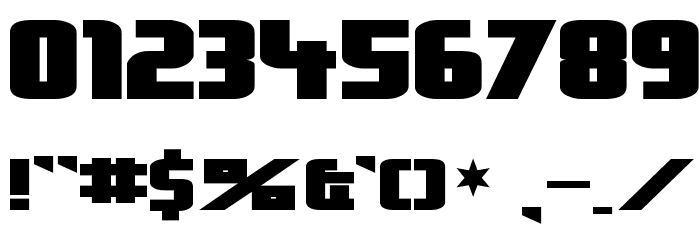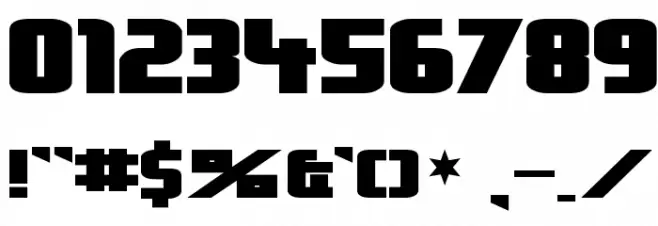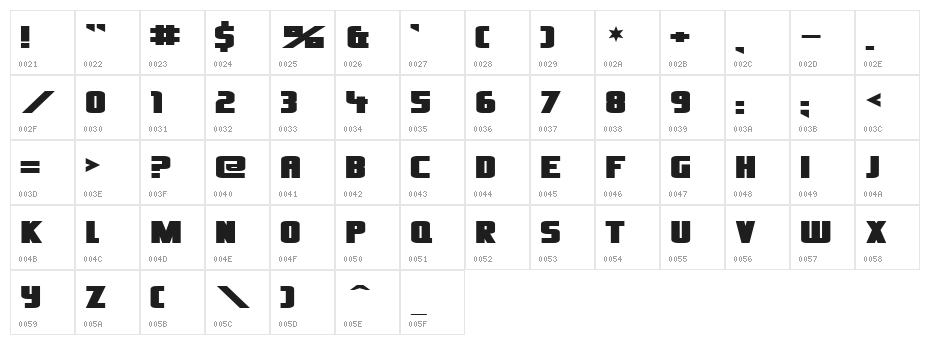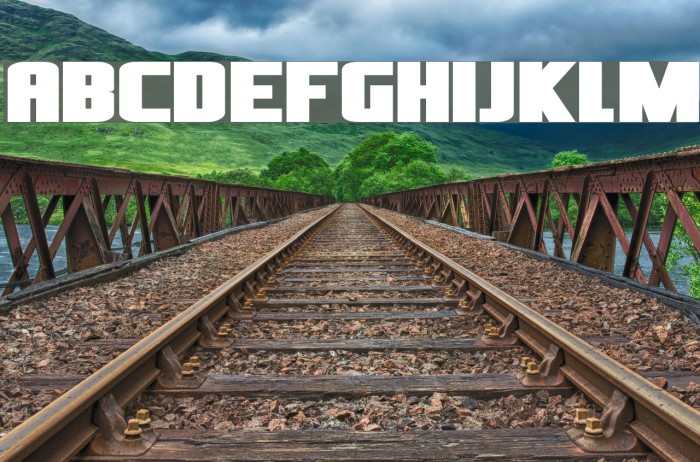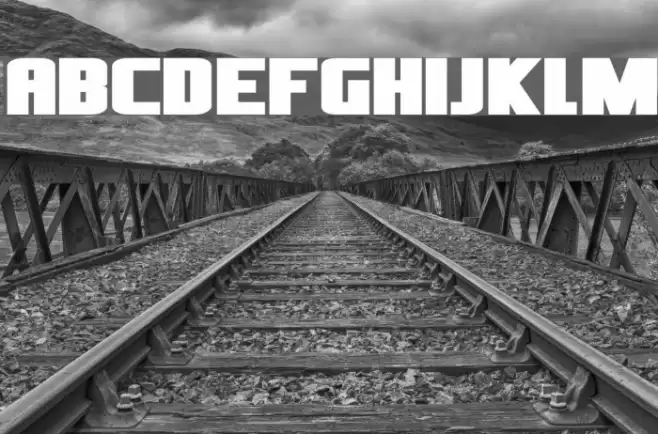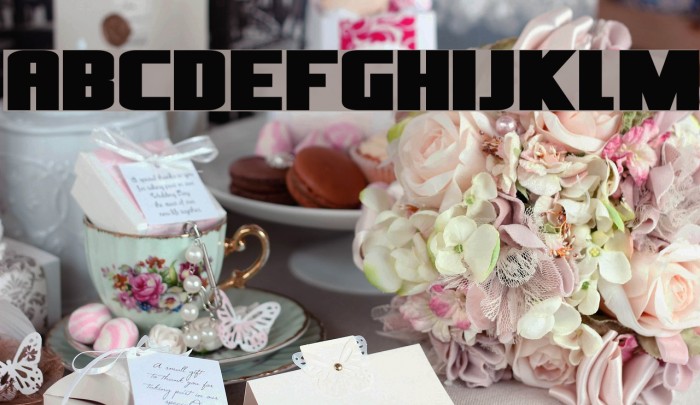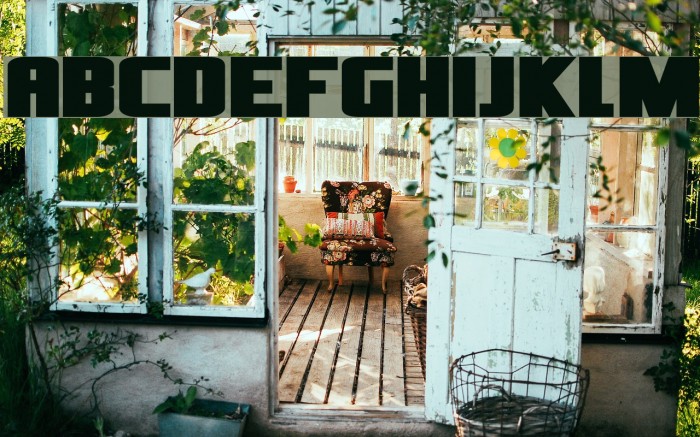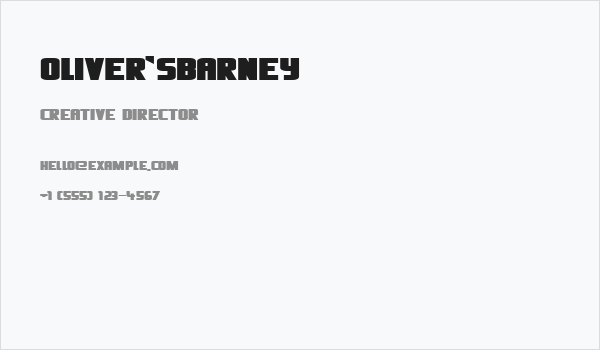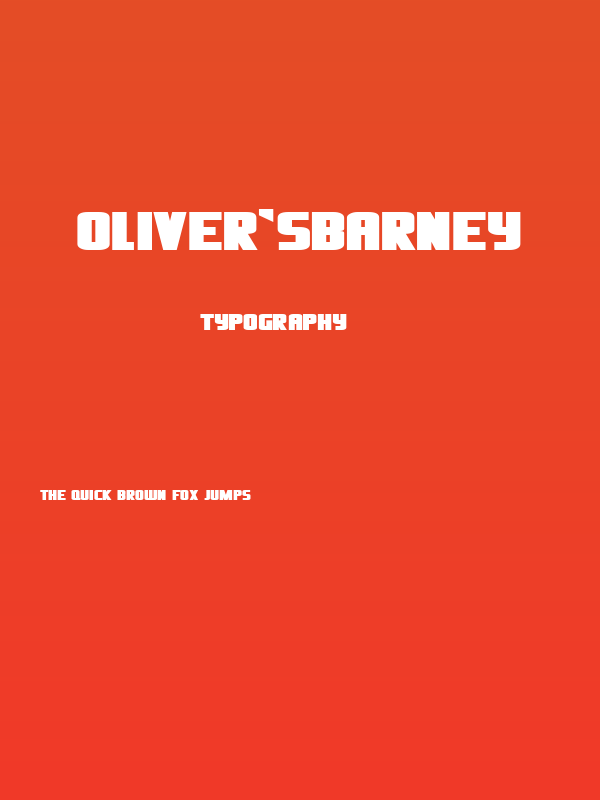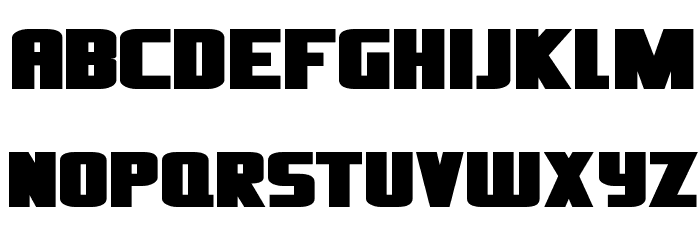
Oliver'sBarney Font
Oliver'sBarney Description
This font features bold, geometric letterforms with a strong presence, characterized by its blocky and robust design. The uppercase and lowercase letters share a consistent width, creating a uniform appearance. The numbers and special characters follow the same bold style, ensuring a cohesive look across all elements. The font's thick strokes and minimal contrast make it highly legible and impactful, ideal for grabbing attention. Its modern and assertive style is suitable for projects that require a strong visual statement.
| Proposed Projects | Ideal for headlines, posters, branding, and advertising where a bold statement is needed. |